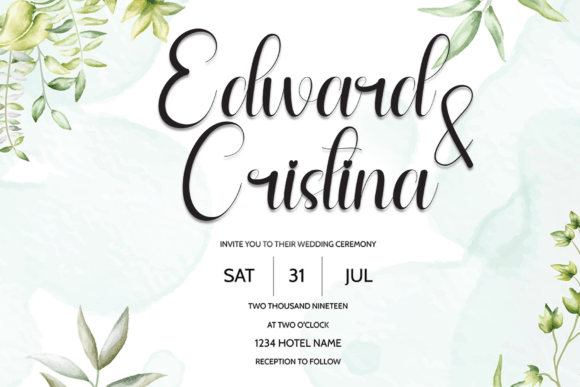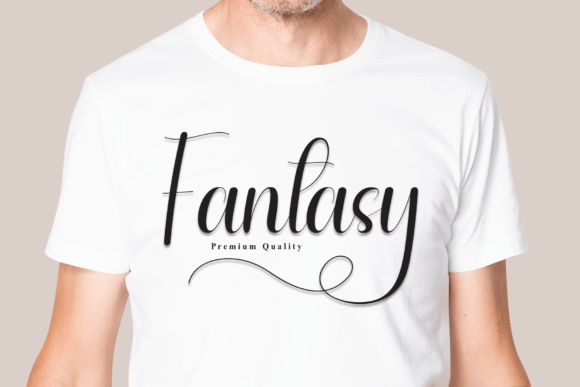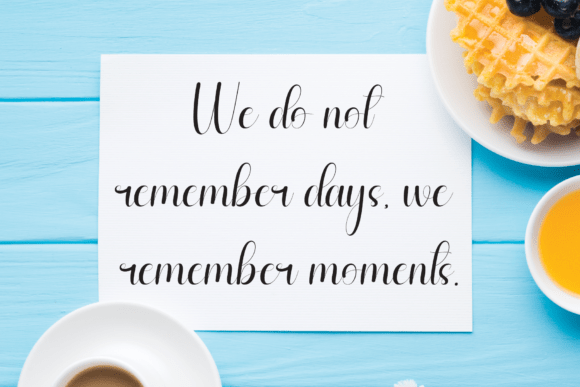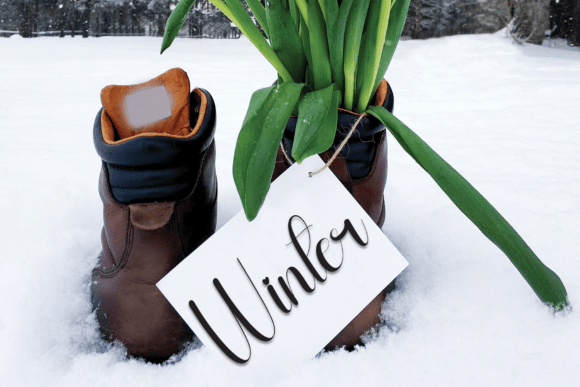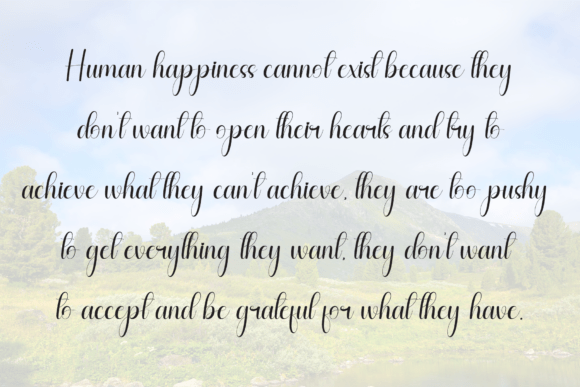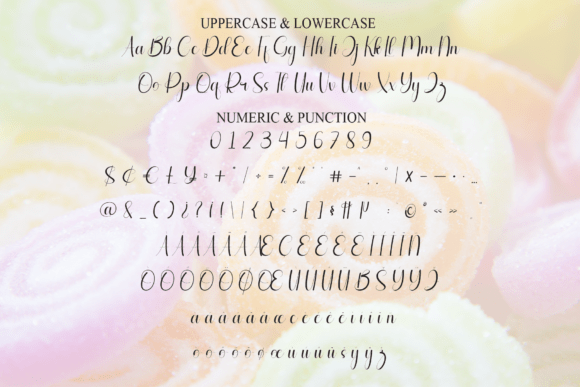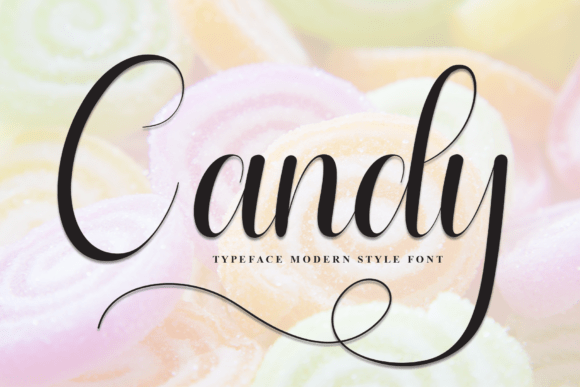
Candy Font: The Sweetest Addition to Your Design Collection
Are you tired of using the same old fonts in your designs? Look no further! Introducing the Candy Font, a delightful handwritten display font that’s sure to add a touch of whimsy and fun to any project. This charming blend of casual and playful typography is perfect for designers and crafters looking to create eye-catching wedding invitations, greeting cards, and other graphical works that demand a dash of joy.
The Perfect Blend of Casual and Playful
The Candy Font is a masterfully crafted typeface that effortlessly balances casual and playful elements. Its handwritten style gives it a friendly and approachable feel, making it perfect for designs that require a personal touch. The font’s playful curves and lines add a touch of sophistication, ensuring that your designs look polished and refined.
Adding a Vibrant Touch to Your Designs
One of the standout features of the Candy Font is its ability to add a vibrant touch to any design. The font’s bright and cheerful personality is infectious, making it perfect for designs that require a dash of energy and enthusiasm. Whether you’re creating wedding invitations, greeting cards, or social media graphics, the Candy Font is sure to make your designs stand out from the crowd.
The Candy Font is particularly well-suited for wedding invitations and greeting cards. Its playful and romantic style makes it perfect for couples looking to add a touch of whimsy to their wedding stationery. Similarly, the font’s friendly and approachable feel makes it ideal for greeting cards that require a personal touch.
Effortlessly Infuse Fun and Warmth into Your Designs
The Candy Font is designed to effortlessly infuse fun and warmth into your designs. Its uniquely spirited typeface is sure to bring a smile to the face of anyone who sees it. Whether you’re a designer or crafter, this font is sure to become a go-to in your collection.
Key Features of the Candy Font
• Handwritten display font: The Candy Font is a beautifully crafted handwritten display font that’s perfect for adding a personal touch to your designs.
• Charming blend of casual and playful: The font’s unique blend of casual and playful elements makes it perfect for designs that require a touch of whimsy and fun.
• Vibrant and energetic: The Candy Font is sure to add a vibrant touch to any design, making it perfect for projects that require a dash of energy and enthusiasm.
• Perfect for wedding invitations and greeting cards: The font’s playful and romantic style makes it ideal for wedding invitations and greeting cards.
Tips for Using the Candy Font
Here are a few tips for getting the most out of the Candy Font:
• Use it sparingly: While the Candy Font is perfect for adding a touch of whimsy to your designs, it’s best used sparingly. Try using it as a headline or title font, and pairing it with a more traditional font for body text.
• Experiment with colors: The Candy Font looks great in a variety of colors, so don’t be afraid to experiment and find the perfect hue for your design.
• Pair it with other playful fonts: The Candy Font pairs perfectly with other playful fonts, so try combining it with a bold or script font for a unique look.